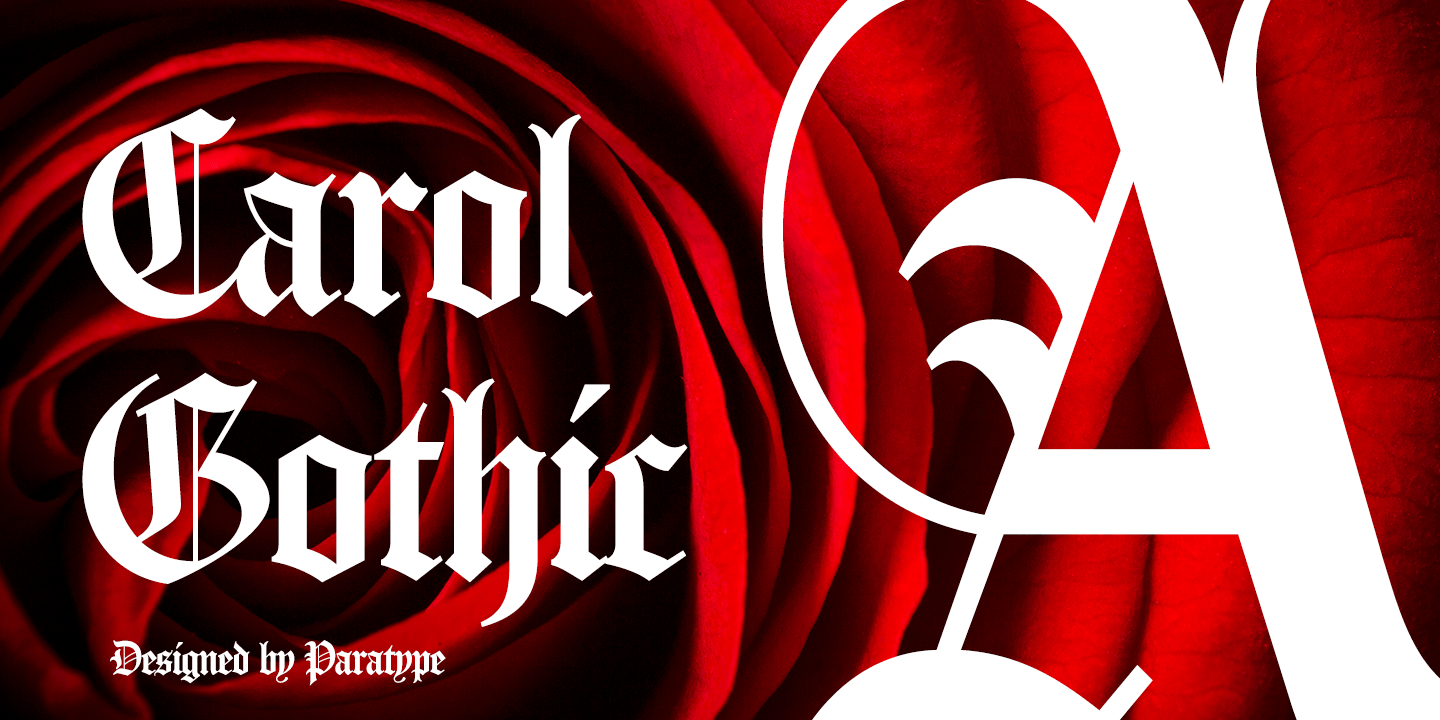
Carol Gothic Font - Carol gothic designed by alexander lubovenko and alexandra korolkova. Carol gothic is a traditional blackletter face closest to linotype's old english. Carol gothic is a modern interpretation of the traditional gothic or blackletter typefaces. Carol gothic is a traditional blackletter face closest to linotype’s old english.
Carol gothic is a traditional blackletter face closest to linotype’s old english. Carol gothic designed by alexander lubovenko and alexandra korolkova. Carol gothic is a modern interpretation of the traditional gothic or blackletter typefaces. Carol gothic is a traditional blackletter face closest to linotype's old english.
Carol gothic is a traditional blackletter face closest to linotype's old english. Carol gothic is a modern interpretation of the traditional gothic or blackletter typefaces. Carol gothic is a traditional blackletter face closest to linotype’s old english. Carol gothic designed by alexander lubovenko and alexandra korolkova.
Carol gothic designed by alexander lubovenko and alexandra korolkova. Carol gothic is a modern interpretation of the traditional gothic or blackletter typefaces. Carol gothic is a traditional blackletter face closest to linotype’s old english. Carol gothic is a traditional blackletter face closest to linotype's old english.
Carol gothic designed by alexander lubovenko and alexandra korolkova. Carol gothic is a traditional blackletter face closest to linotype’s old english. Carol gothic is a traditional blackletter face closest to linotype's old english. Carol gothic is a modern interpretation of the traditional gothic or blackletter typefaces.
Carol gothic is a modern interpretation of the traditional gothic or blackletter typefaces. Carol gothic designed by alexander lubovenko and alexandra korolkova. Carol gothic is a traditional blackletter face closest to linotype’s old english. Carol gothic is a traditional blackletter face closest to linotype's old english.
Carol Gothic Font
Carol gothic is a modern interpretation of the traditional gothic or blackletter typefaces. Carol gothic designed by alexander lubovenko and alexandra korolkova. Carol gothic is a traditional blackletter face closest to linotype's old english. Carol gothic is a traditional blackletter face closest to linotype’s old english.
Carol gothic is a modern interpretation of the traditional gothic or blackletter typefaces. Carol gothic is a traditional blackletter face closest to linotype’s old english. Carol gothic designed by alexander lubovenko and alexandra korolkova. Carol gothic is a traditional blackletter face closest to linotype's old english.
Carol gothic designed by alexander lubovenko and alexandra korolkova. Carol gothic is a traditional blackletter face closest to linotype’s old english. Carol gothic is a modern interpretation of the traditional gothic or blackletter typefaces. Carol gothic is a traditional blackletter face closest to linotype's old english.
Carol gothic designed by alexander lubovenko and alexandra korolkova. Carol gothic is a traditional blackletter face closest to linotype's old english. Carol gothic is a traditional blackletter face closest to linotype’s old english. Carol gothic is a modern interpretation of the traditional gothic or blackletter typefaces.
Carol gothic is a traditional blackletter face closest to linotype’s old english. Carol gothic is a modern interpretation of the traditional gothic or blackletter typefaces. Carol gothic designed by alexander lubovenko and alexandra korolkova. Carol gothic is a traditional blackletter face closest to linotype's old english.
Carol gothic is a modern interpretation of the traditional gothic or blackletter typefaces. Carol gothic is a traditional blackletter face closest to linotype’s old english. Carol gothic is a traditional blackletter face closest to linotype's old english. Carol gothic designed by alexander lubovenko and alexandra korolkova.
Carol Gothic Is A Traditional Blackletter Face Closest To Linotype's Old English.
Carol gothic is a modern interpretation of the traditional gothic or blackletter typefaces. Carol gothic is a traditional blackletter face closest to linotype’s old english. Carol gothic designed by alexander lubovenko and alexandra korolkova.